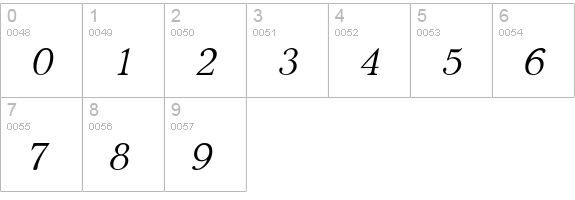
JabcedHy Italic Font Details
JabcedHy Italic is a distinctive, italic variant in the JabcedHy typeface family \xE2\x80\x94 well suited to design and typography projects.
Introducing JabcedHy Italic, a stylish and elegant font that exudes sophistication and creativity. This free font is perfect for adding a touch of class to any design project. Its unique and graceful letterforms effortlessly capture attention, making it ideal for headlines, logos, invitations, and more. JabcedHy Italic is the epitome of modern elegance, with its sleek and slender strokes that effortlessly flow across the page. Its slight slant adds a touch of dynamism, making it a versatile choice for both formal and informal designs. Whether you're looking to create a high-end brand identity or simply elevate your personal projects, this font is sure to impress. One of the best features of JabcedHy Italic is that it is freely available to download at FontsMarket.com. This means that you can easily access and use this stunning font without any cost. Its availability on FontsMarket.com ensures a seamless and hassle-free experience, allowing you to enhance your designs without breaking the bank. With JabcedHy Italic, you have the opportunity to elevate your designs with its exquisite and refined aesthetic. Its versatility, elegance, and the fact that it is free to download make it a must-have font for designers, artists, and creatives of all kinds. So why wait? Visit FontsMarket.com now and indulge in the beauty of JabcedHy Italic.